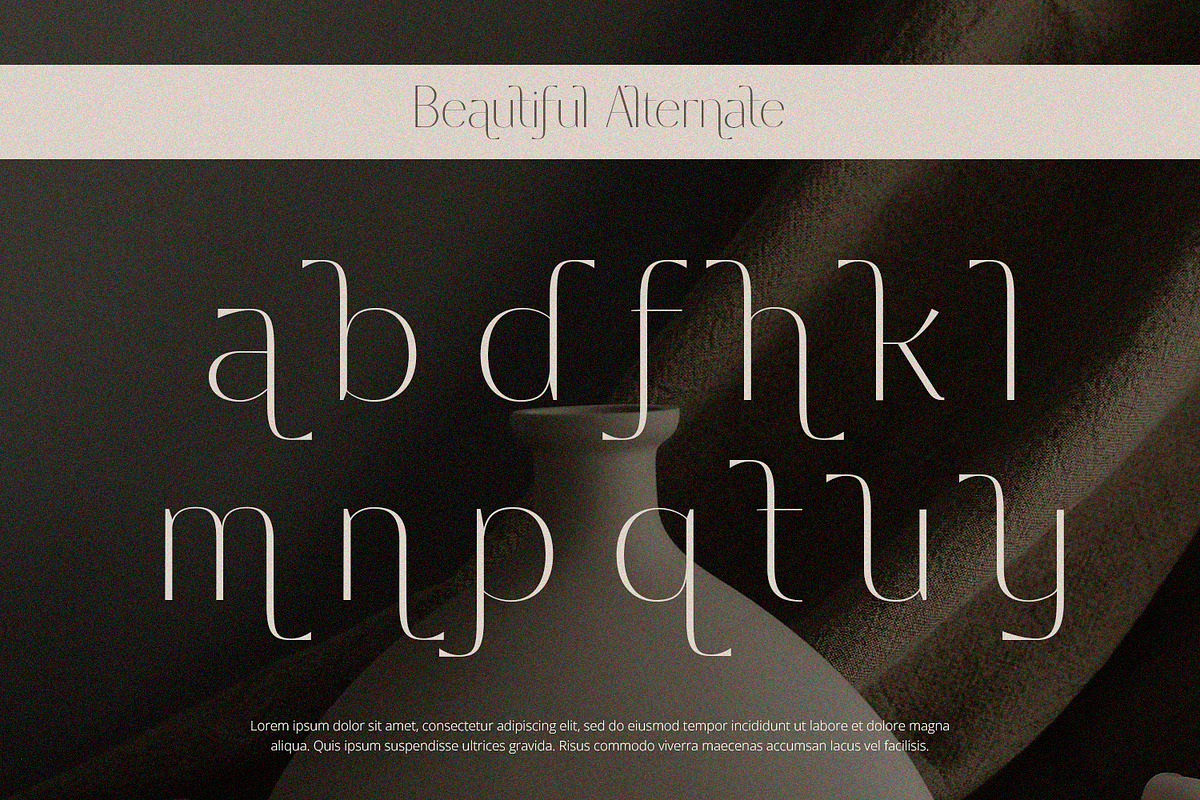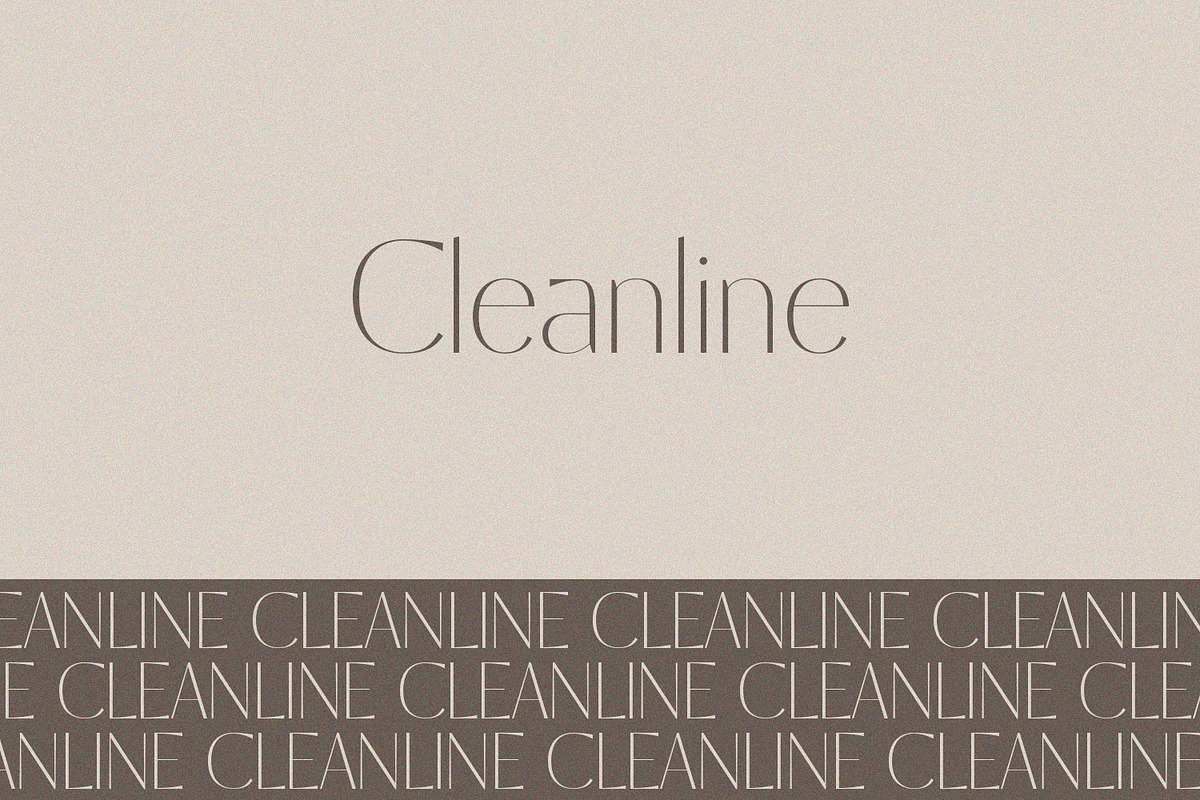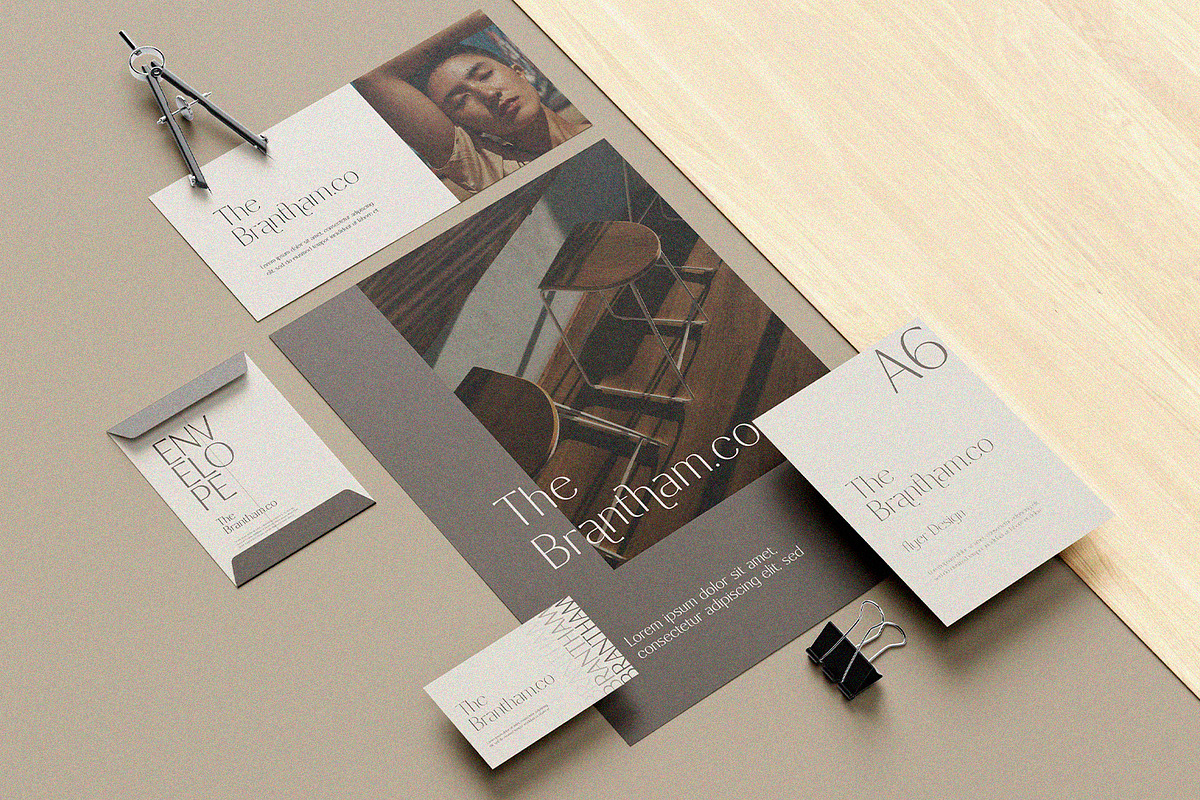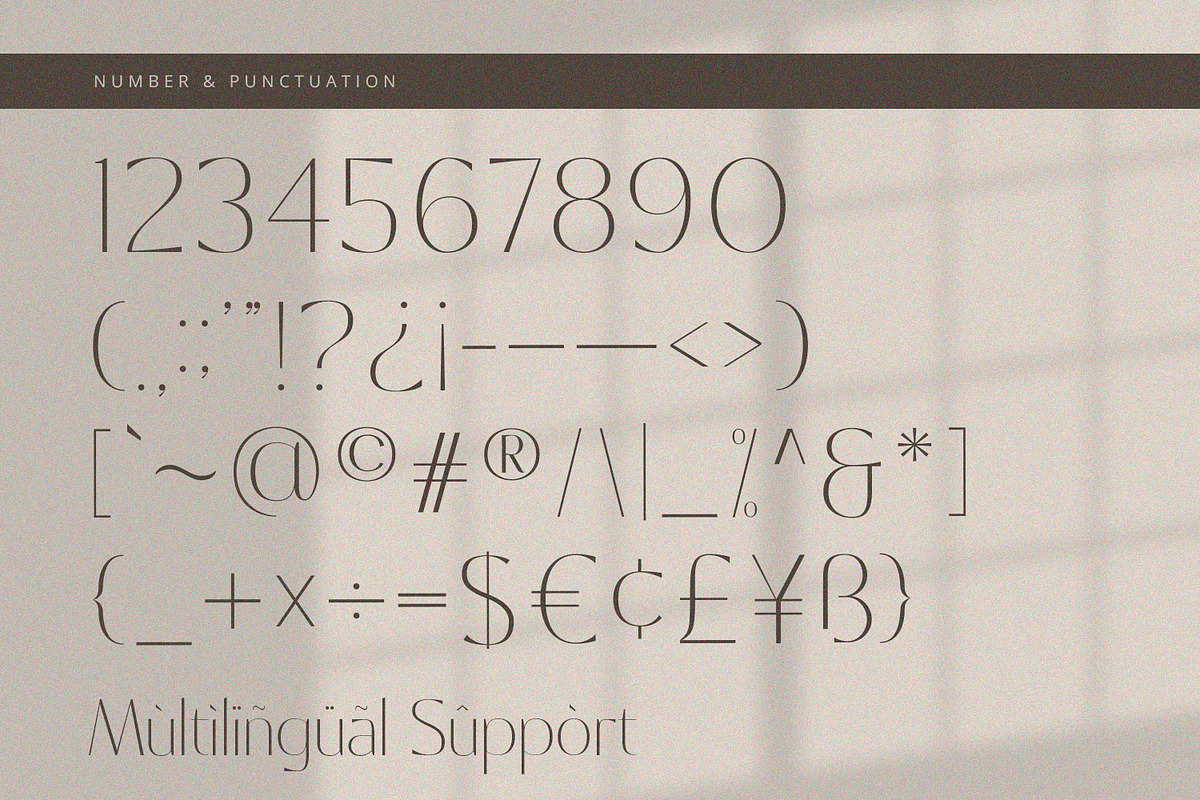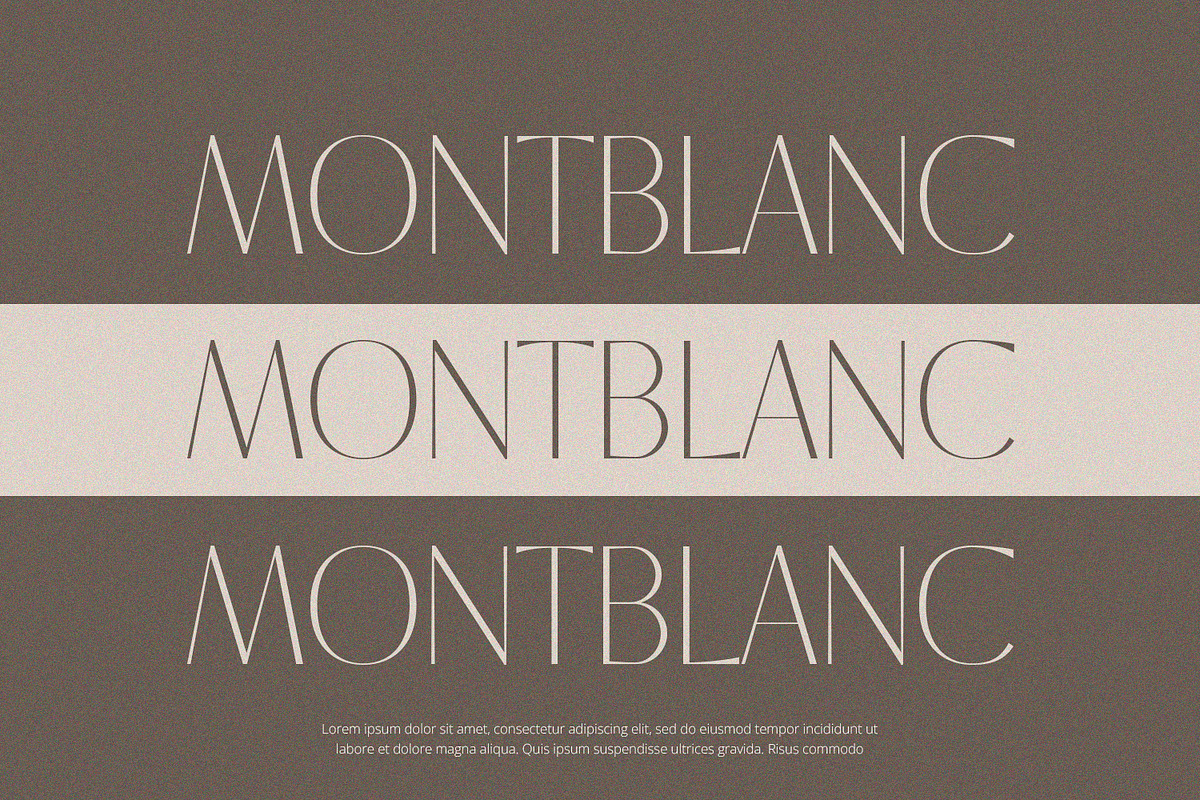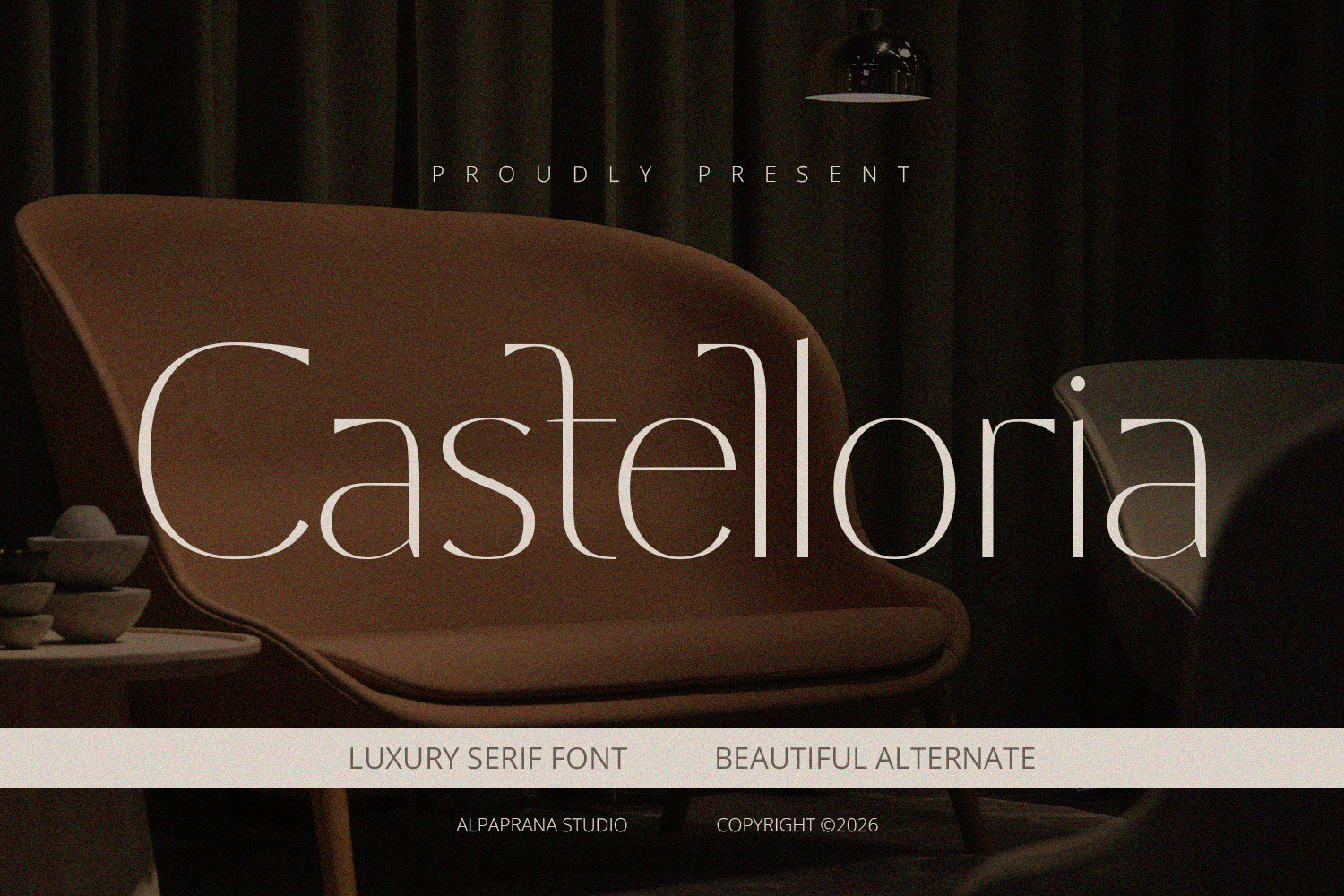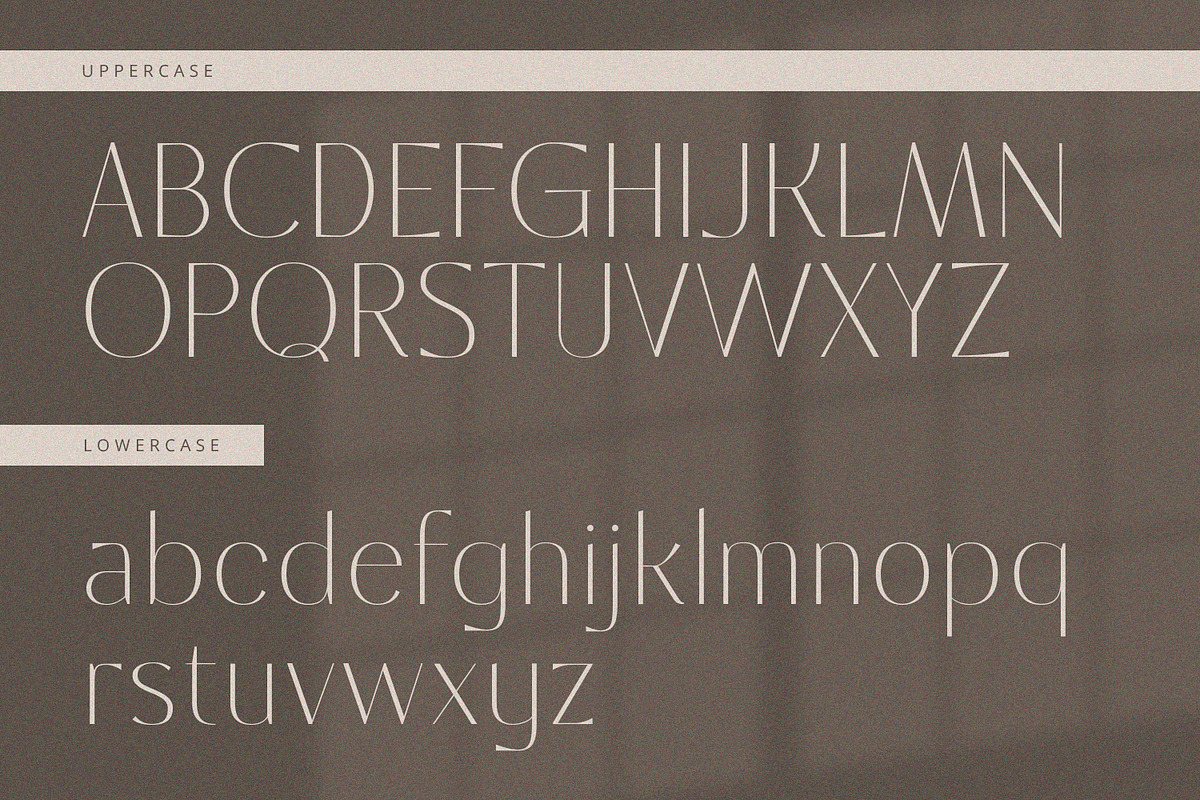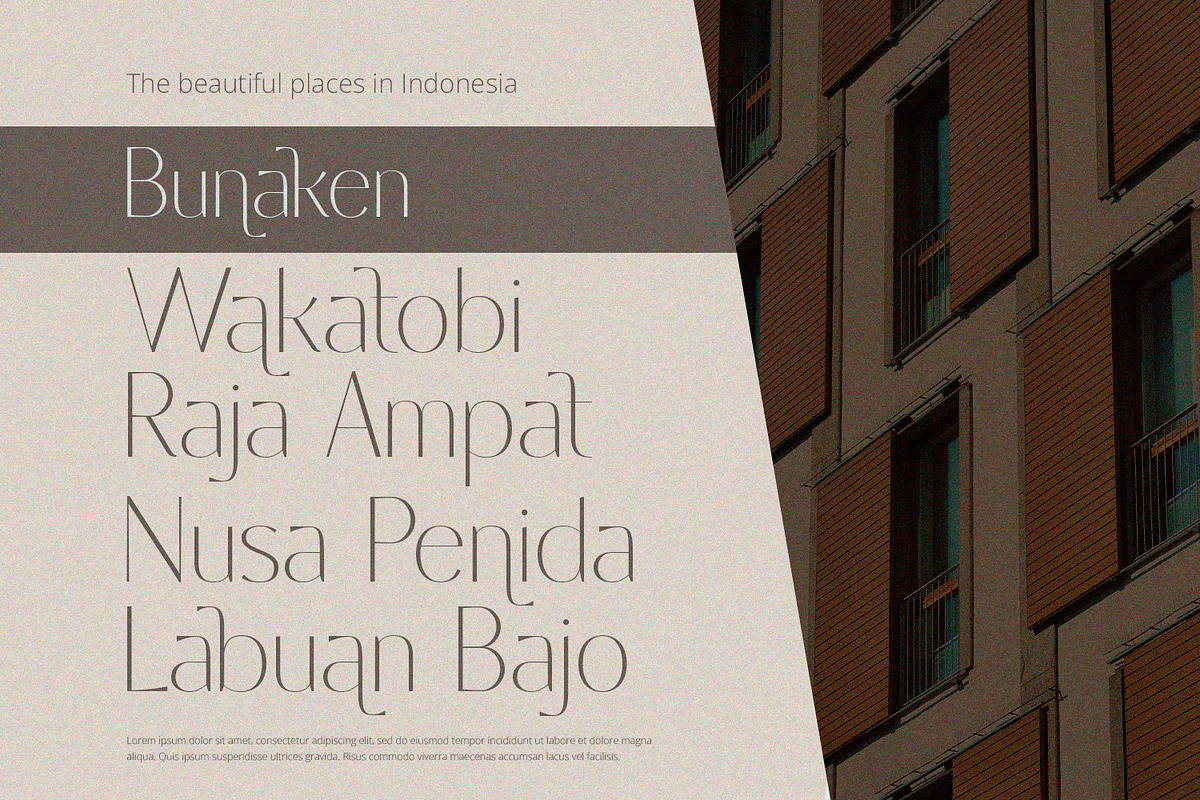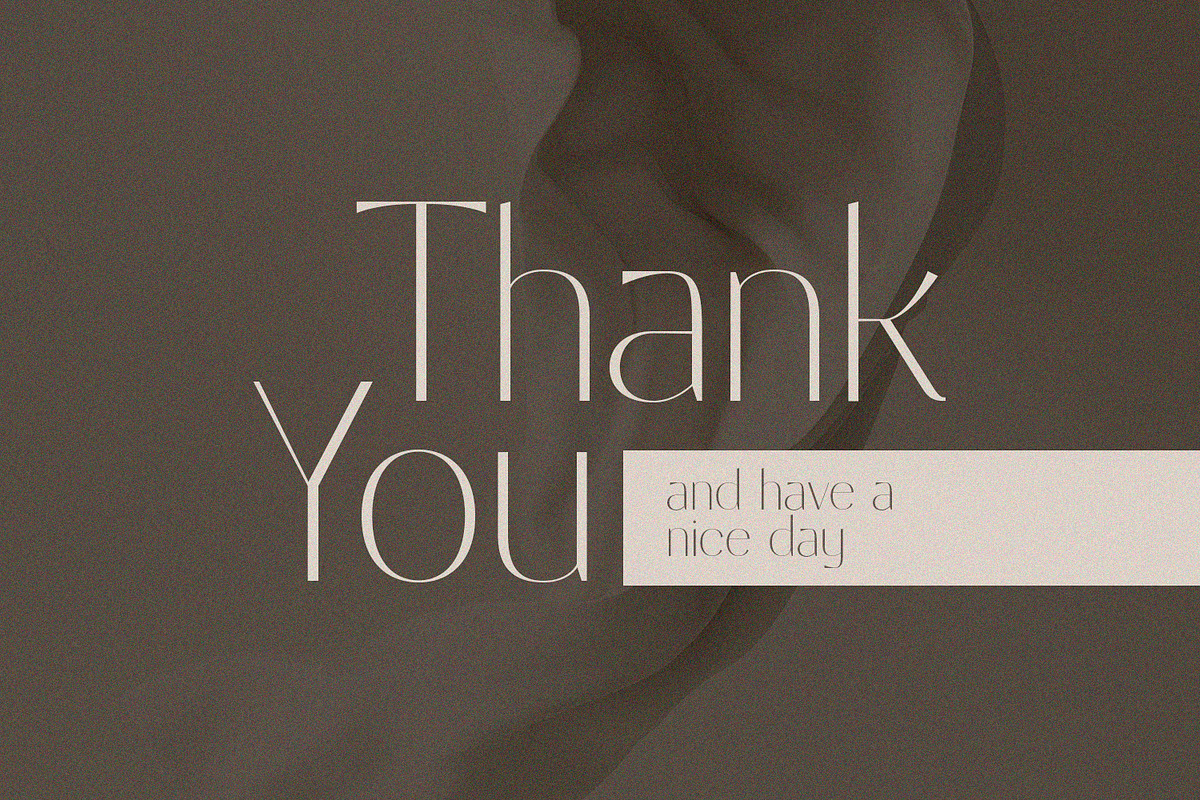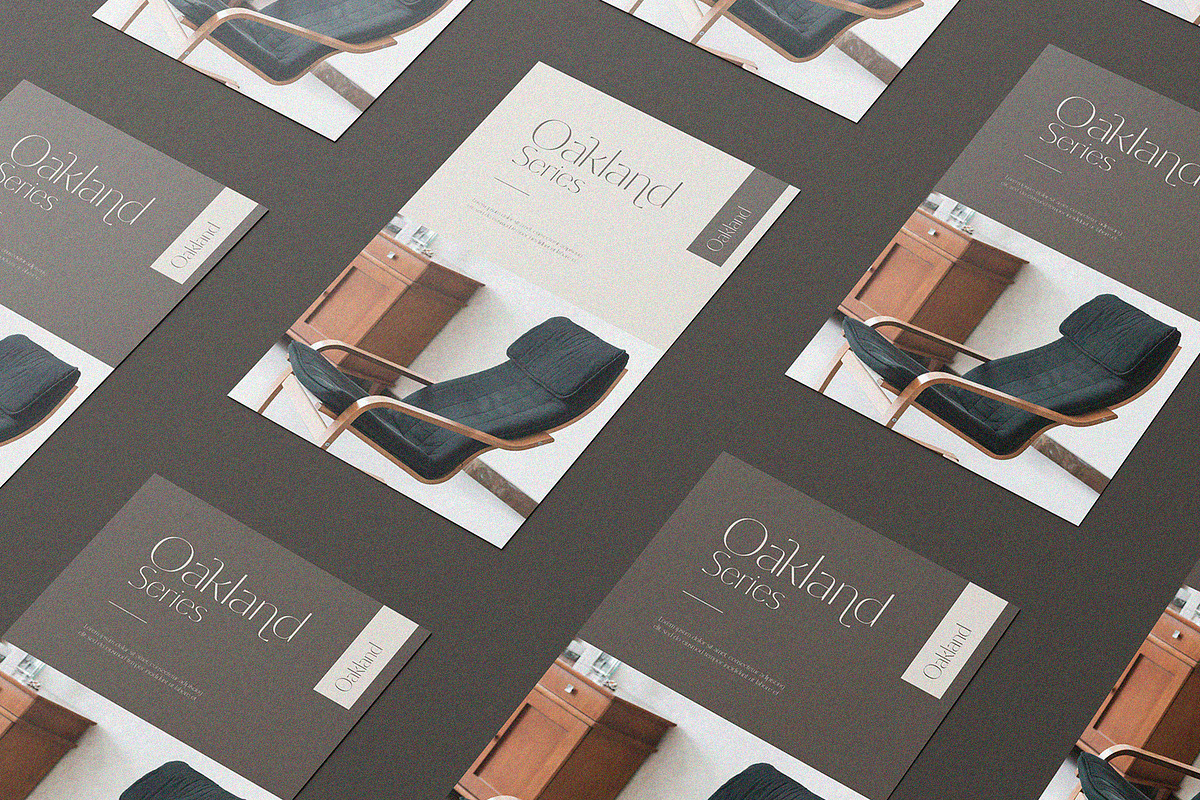
Castelloria - Serif Font
Castelloria is serif font with modern feels. It will be perfectly used for Branding, Logo Design, Lettering, Logotype, Clothing, Poster, magazine, packaging, posters, shopping bags, t-shirts, book covers, photography, special events and other design project.